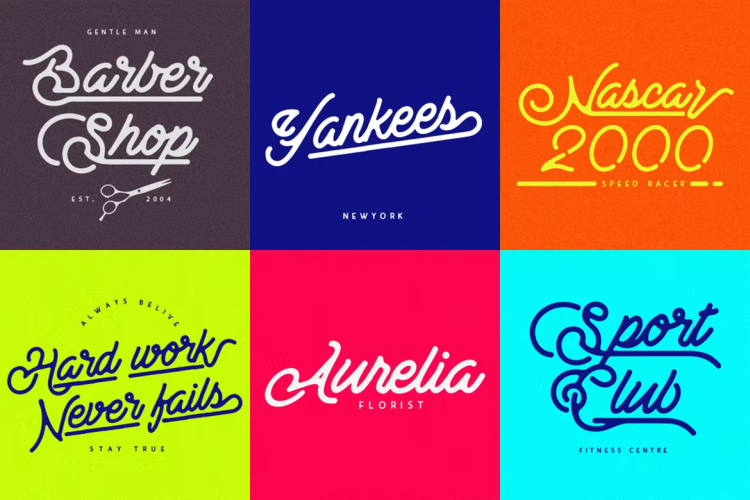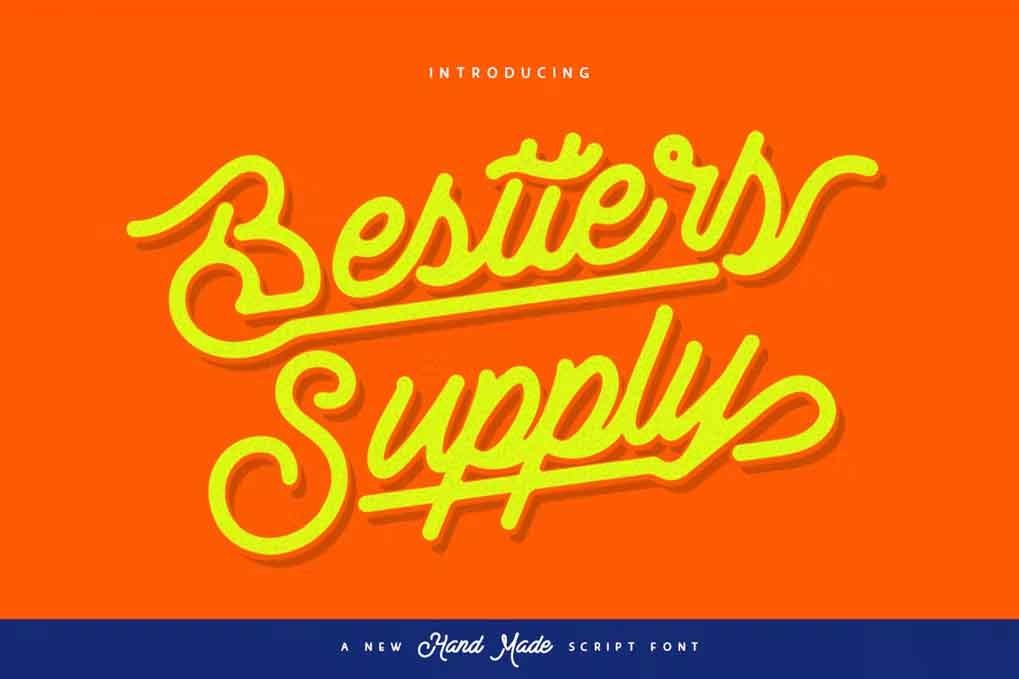
Bestters Supply Font
Bestters Supply is a hand made script font, bold, classic and fun vintage script.Can be used for various purposes.such as logos, t-shirt, letterhead, signage, news, shop…
Bestters Supply is a hand made script font, bold, classic and fun vintage script.Can be used for various purposes.such as logos, t-shirt, letterhead, signage, news, shopping bag, posters, badges etc.
Bestters Supply comes with Opentype features with 400 glyphs inside. Including alternate characters upper and lower case, ligatures, discretionary ligatures, and multiple language support.
Where Bestters Supply Font works best
A short phrase in Bestters Supply Font carries warmth that a typeset sans cannot fake; keep the rest of the card plain.
Chalkboard-style headings in Bestters Supply Font make a menu feel hand-made. Keep the dish descriptions in a simple face so prices stay readable.
One line of Bestters Supply Font over a photo is enough; the script carries the tone and the caption does the work.
What kind of work does Bestters Supply Font suit?
It sits in the Script And Handwritten group and reads as bold, branding, classic, handwritten. That makes it a candidate wherever those qualities help: headings, packaging, social graphics and brand work. Set it at the size you plan to use before deciding.